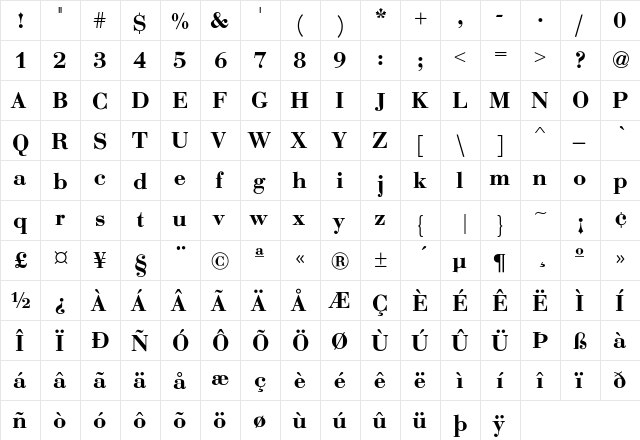
Bodoni-Bold-DTC Regular
Design Context for Bodoni-Bold-DTC Typeface
Bodoni-Bold-DTC is a composed and adaptable typeface that performs quietly and consistently across a wide range of design contexts. Its bold stroke weight gives it real presence on the page.